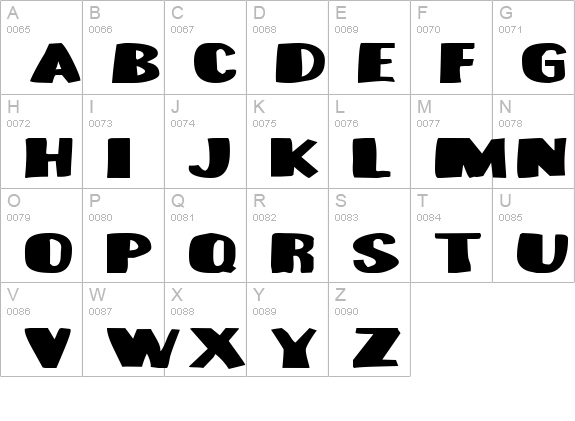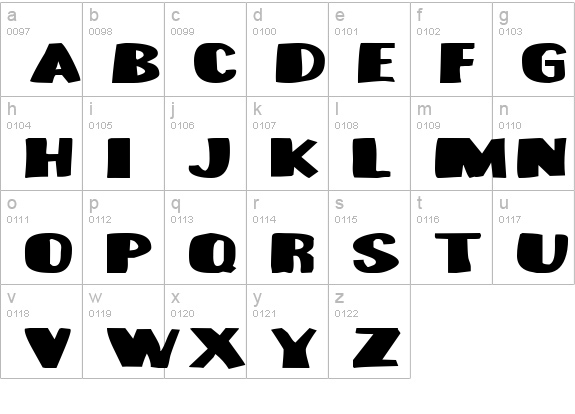
Munster Bash Font Details
Introducing Munster Bash font, a quirky and playful typeface that is perfect for adding a touch of whimsy to your designs. This fun and friendly font features unique letterforms with a spooky twist, making it ideal for Halloween-themed projects, party invitations, posters, and more. What makes Munster Bash font even more appealing is that it is completely free to download at FontsMarket.com. Yes, you read that right - this charming font can be yours at no cost, allowing you to unleash your creativity without breaking the bank. With its bold and eye-catching appearance, Munster Bash font is sure to make a statement in any design. Whether you're creating a fun greeting card or designing a spooky flyer, this font will bring a touch of personality and charm to your project. Don't miss out on the opportunity to add Munster Bash font to your collection. Download it for free today at FontsMarket.com and let your imagination run wild with this playful and captivating typeface.